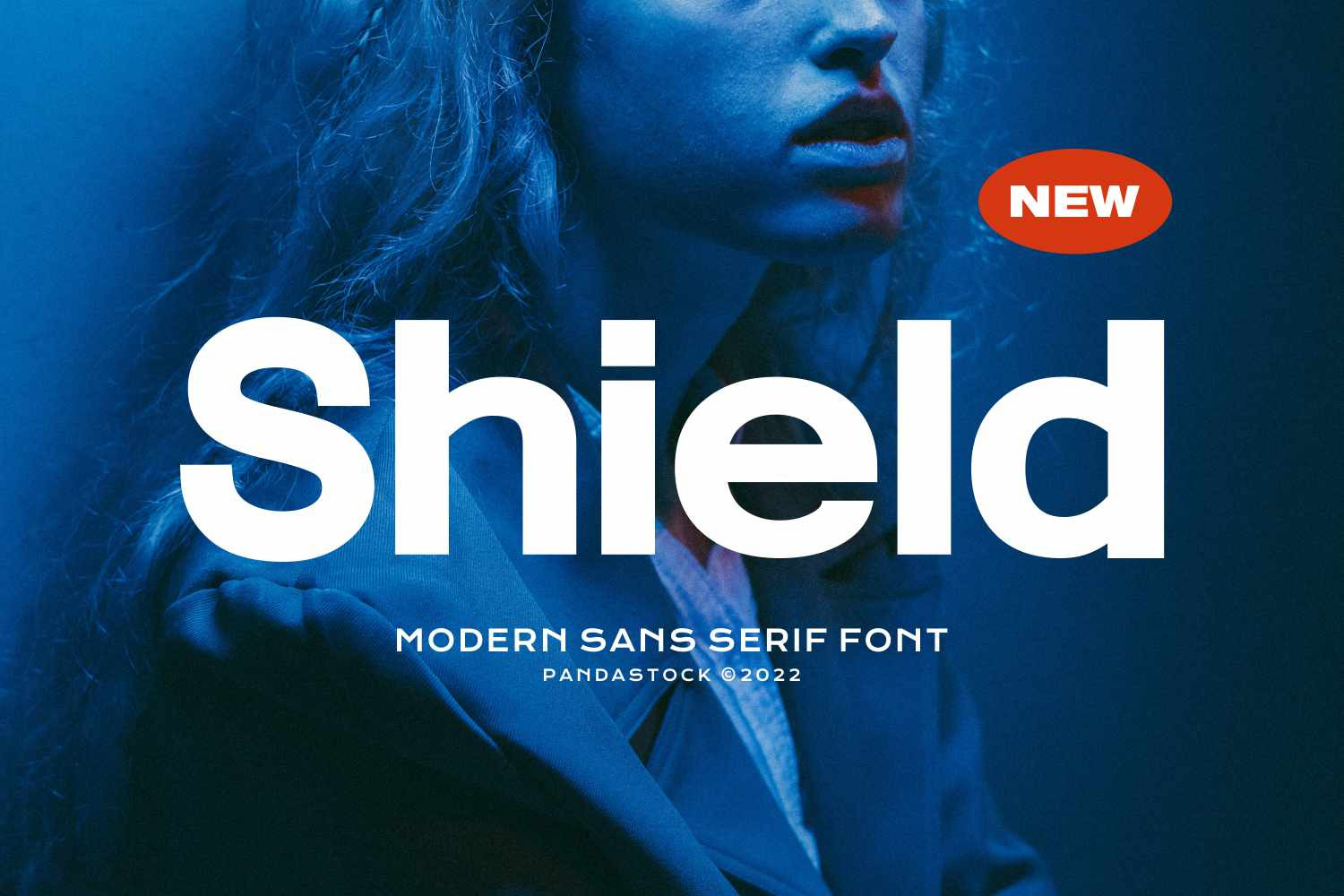
Shield - Elegant Sans Serif Fonts
Shield is a modern sans-serif font designed with a bold geometric aesthetic, featuring clean lines and balanced proportions. This font offers a contemporary look that radiates clarity and visual impact, making it highly effective for headlines, logos, tech companies, fashion labels, and advertising campaigns that demand attention.
Shield is ideal for event posters, magazine covers, digital hero banners, advertisements, product packaging, social media graphics, and any creative project that requires a strong and impactful typographic statement.